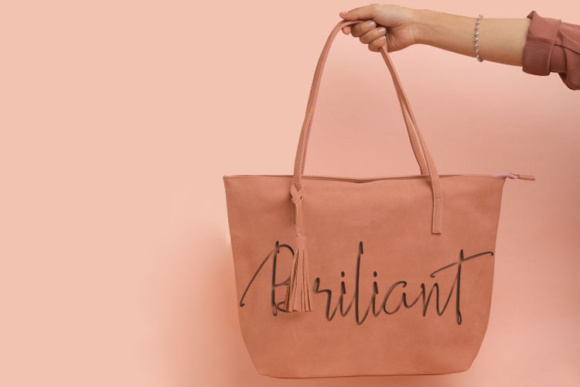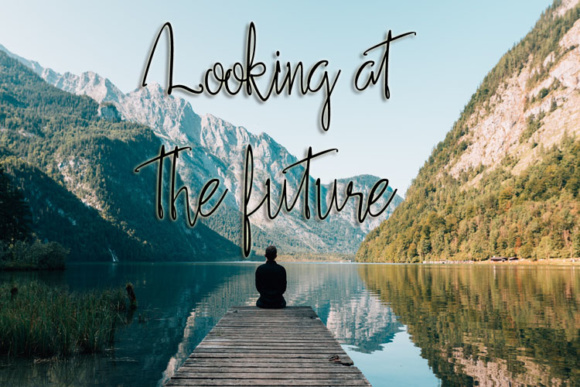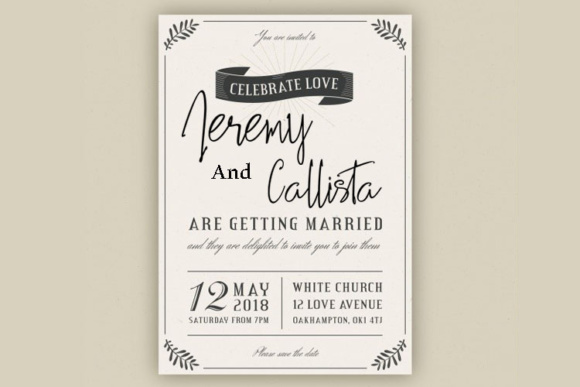
Pratistela Font
About Pratistela Font
The Pratistela is a modern script font. It has an elegant handwritten feel which makes it perfect for adding a personal touch to your designs.